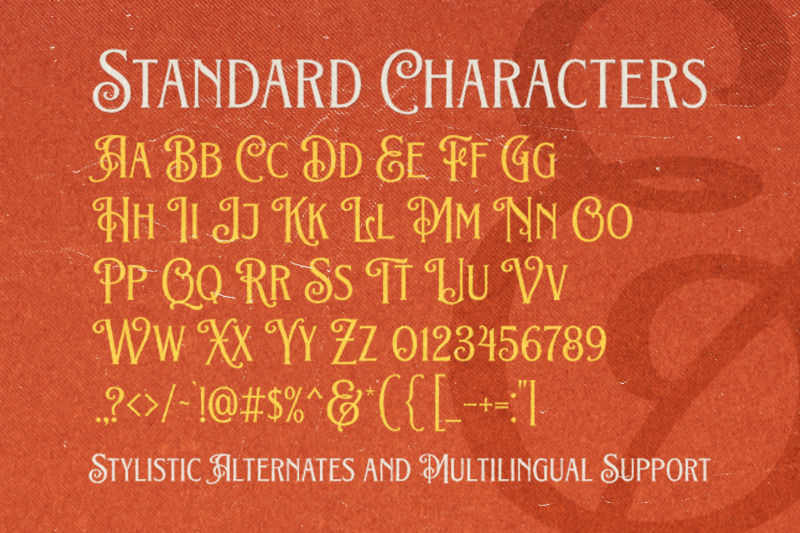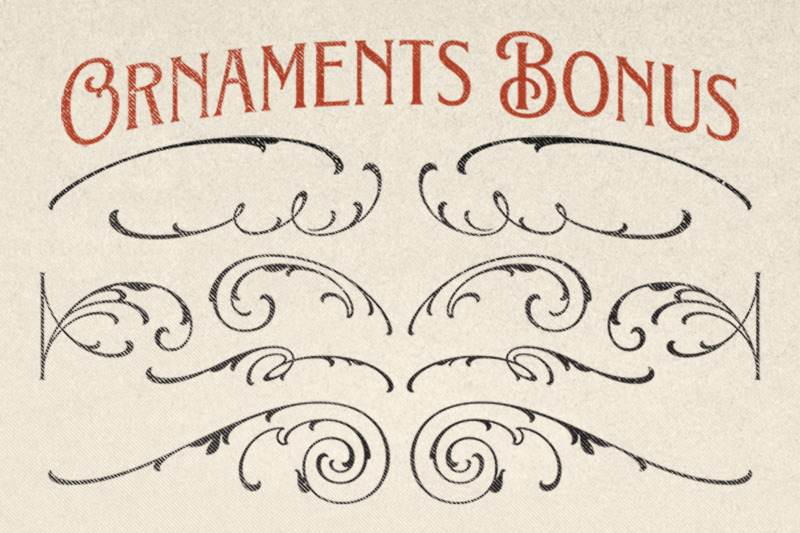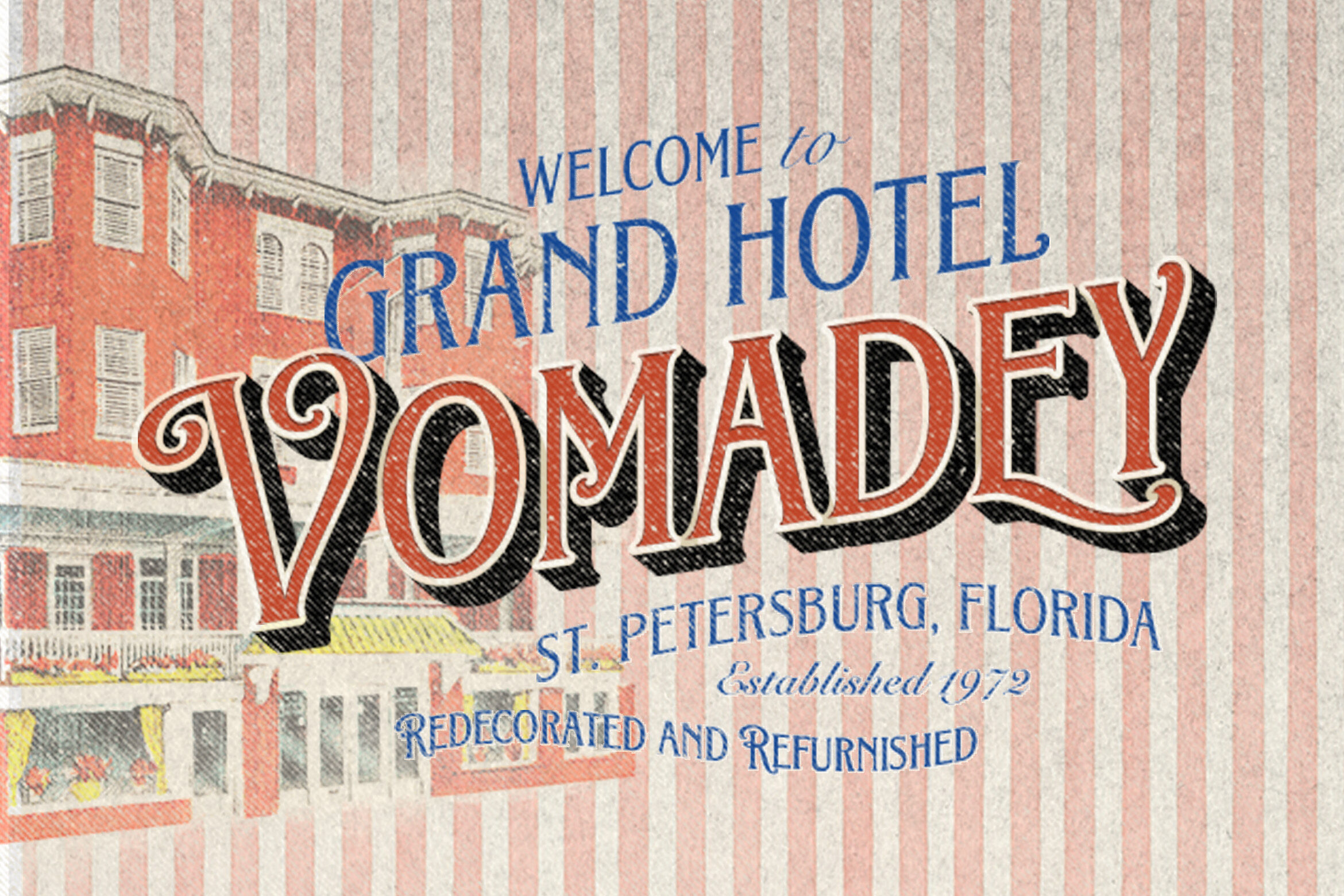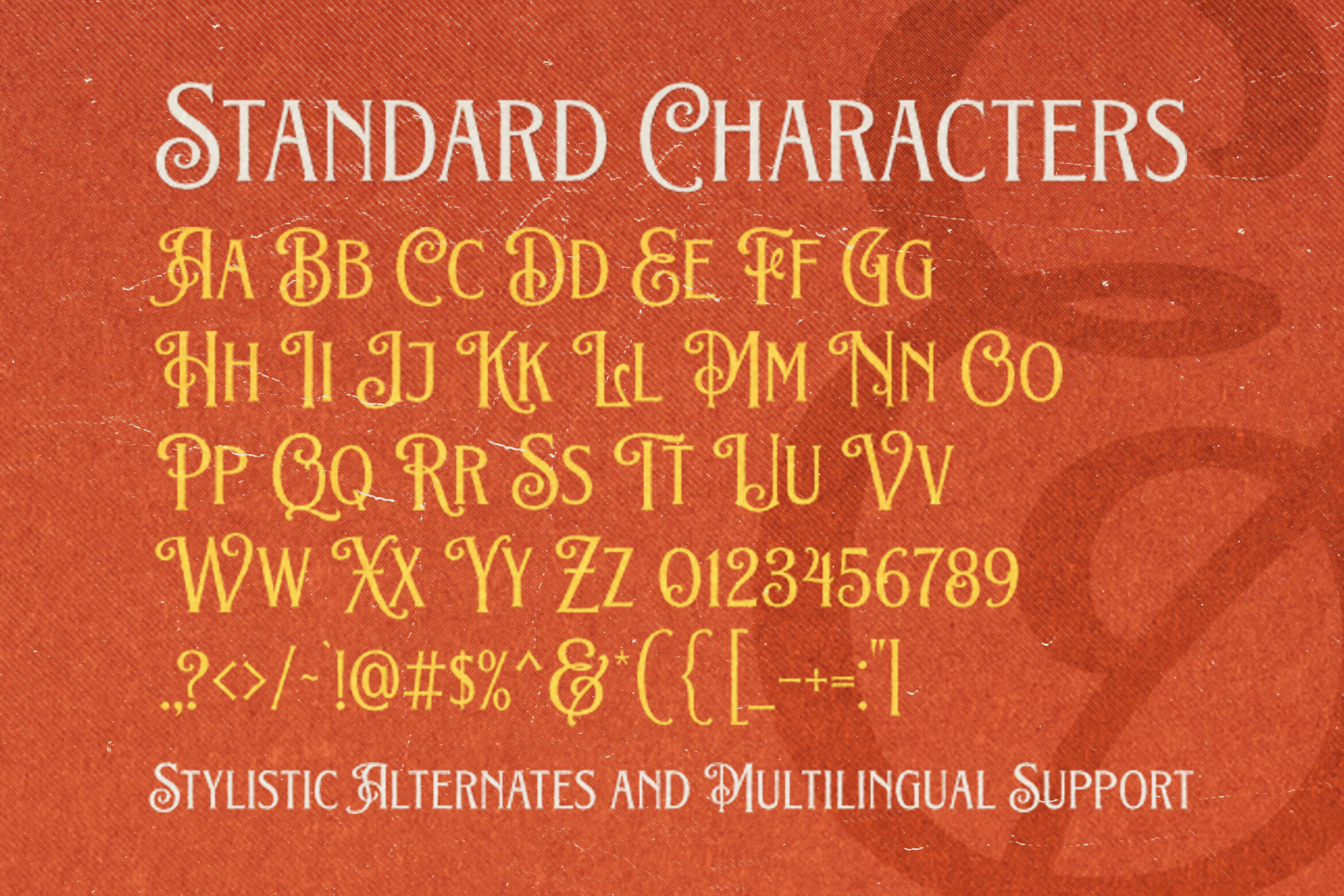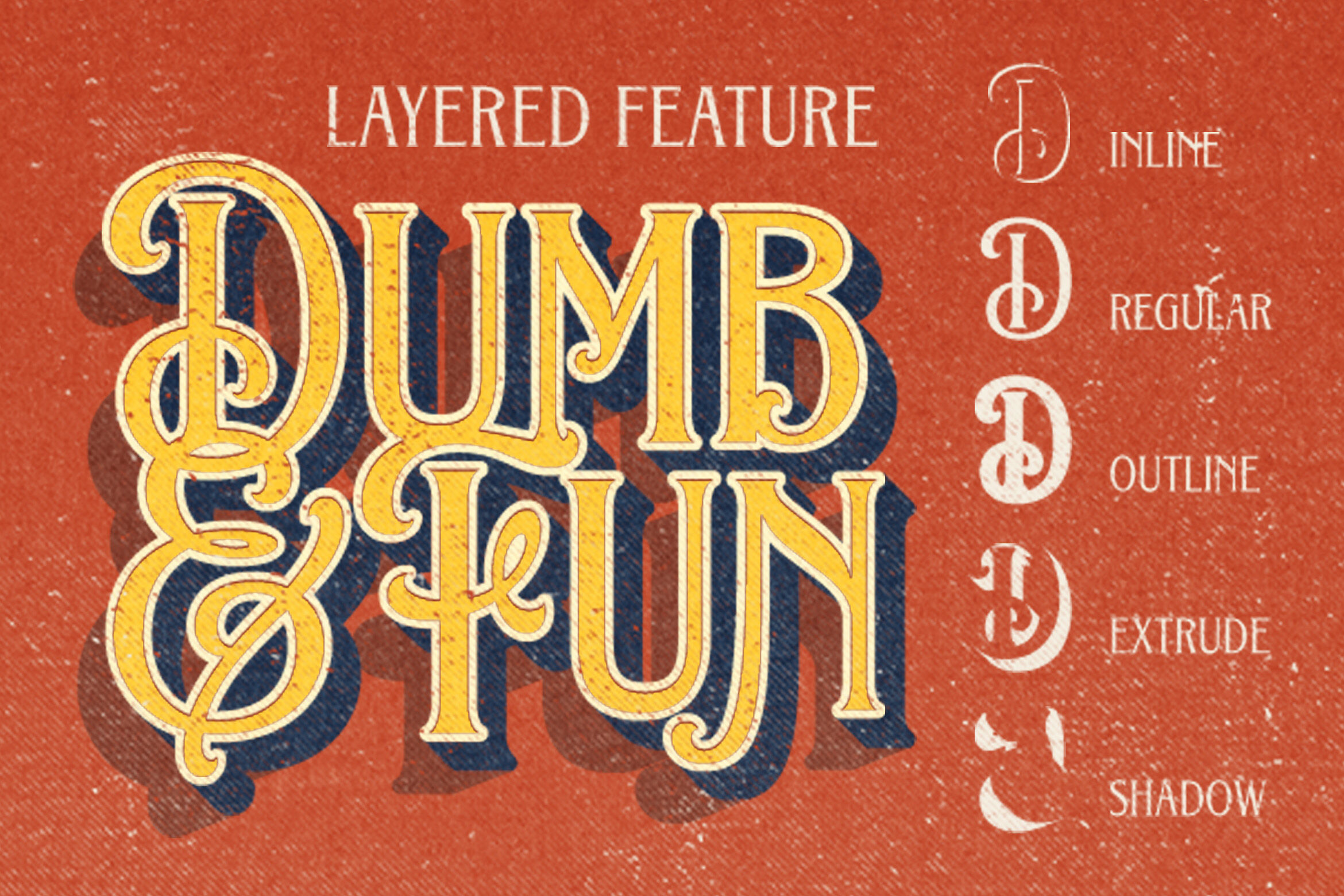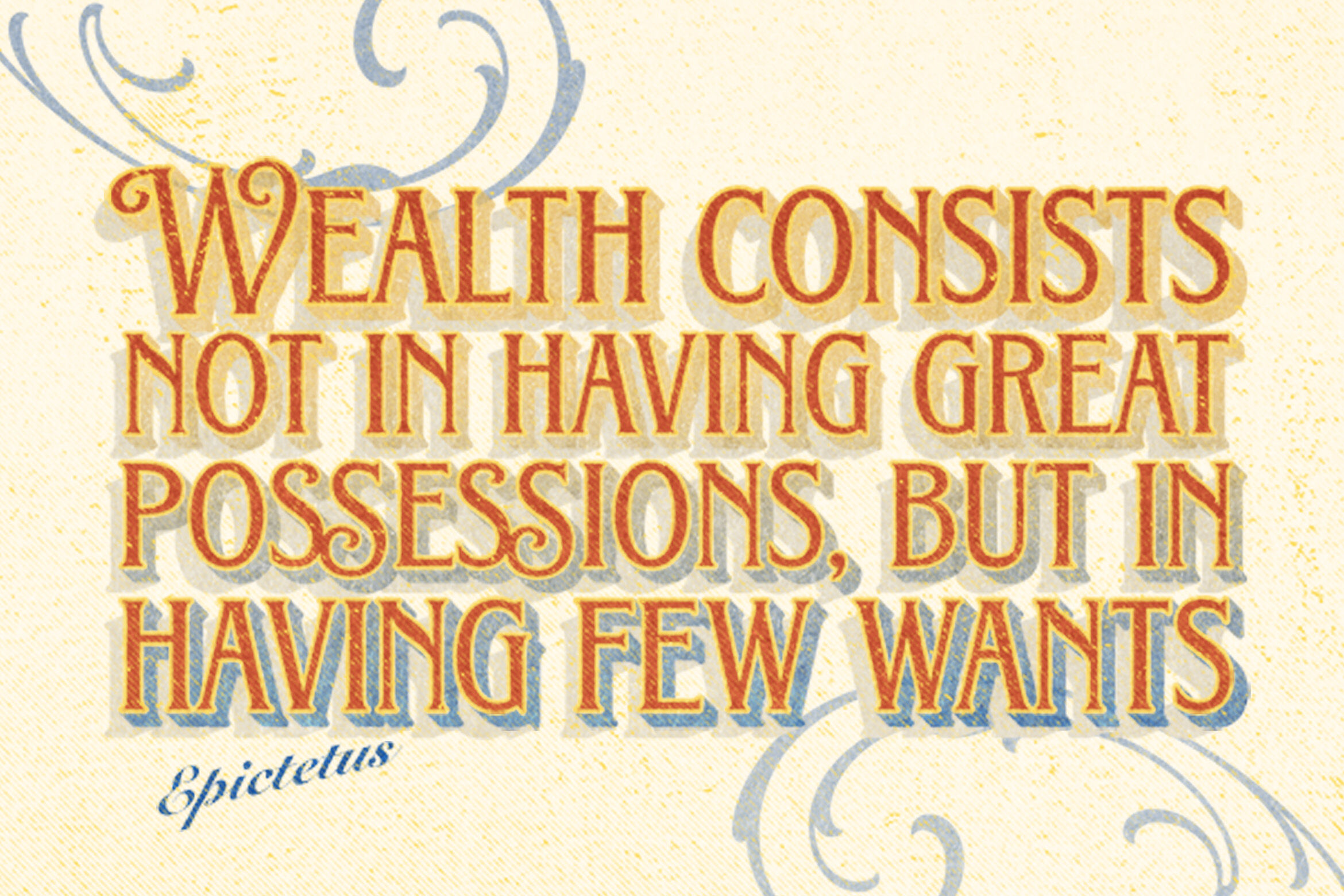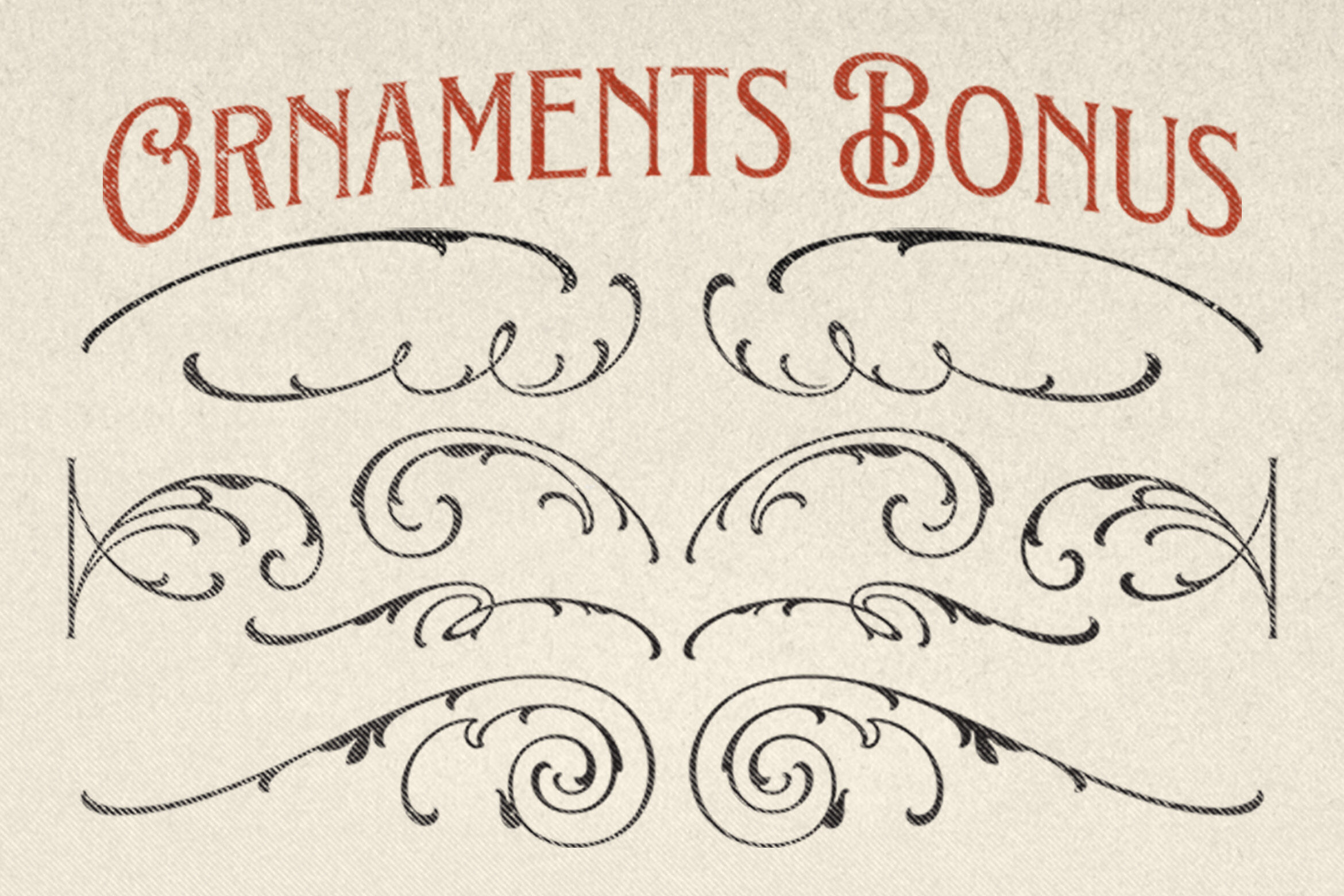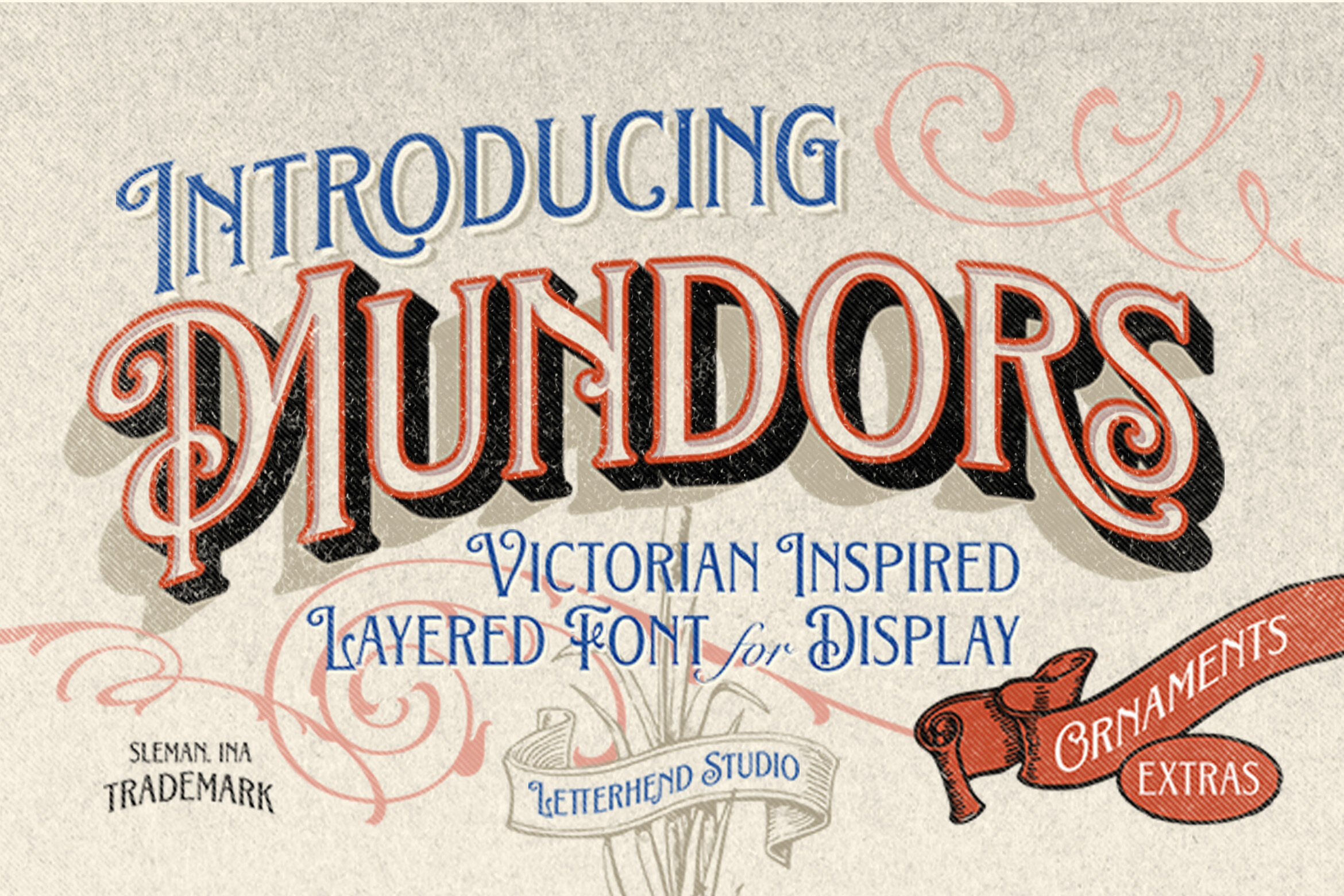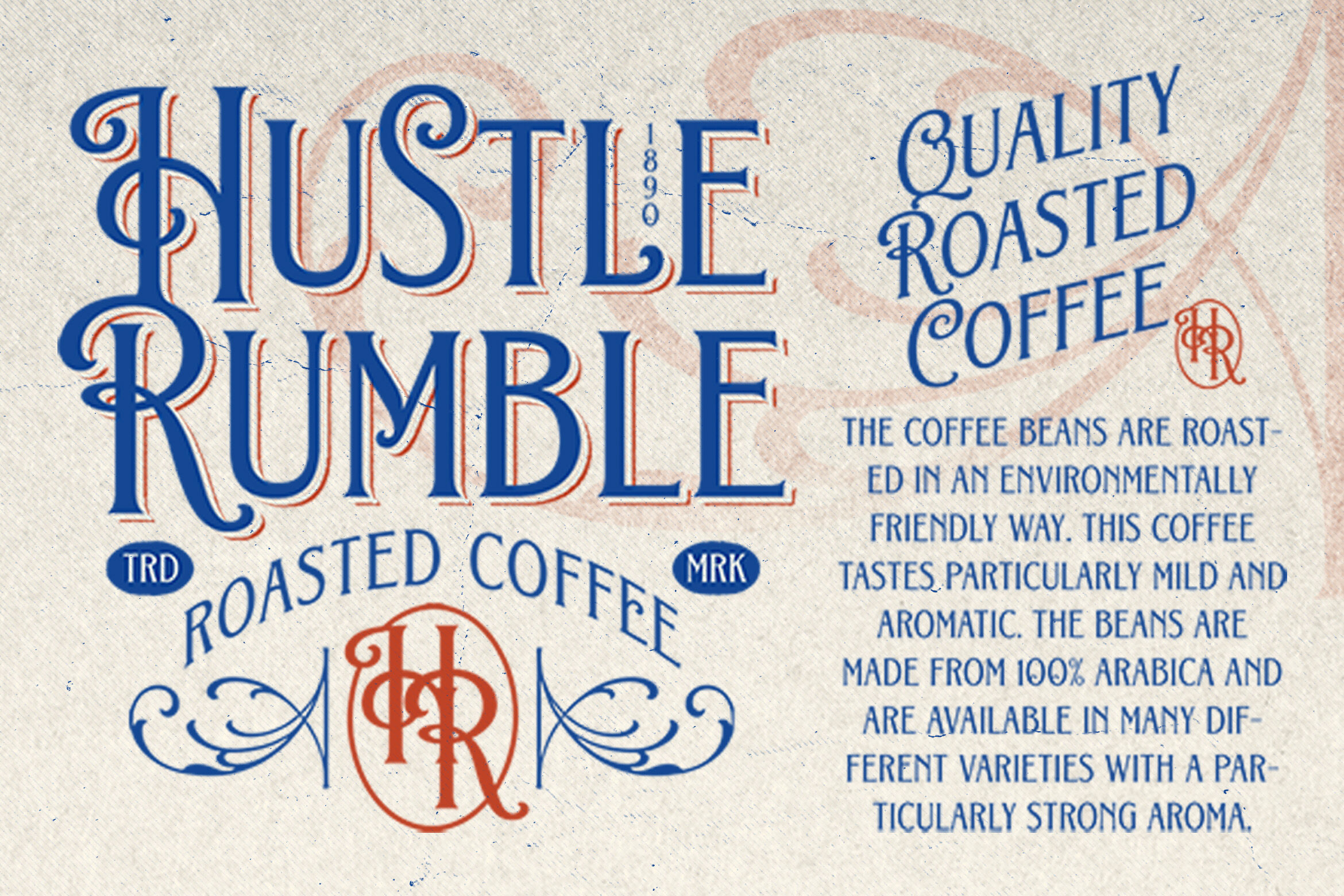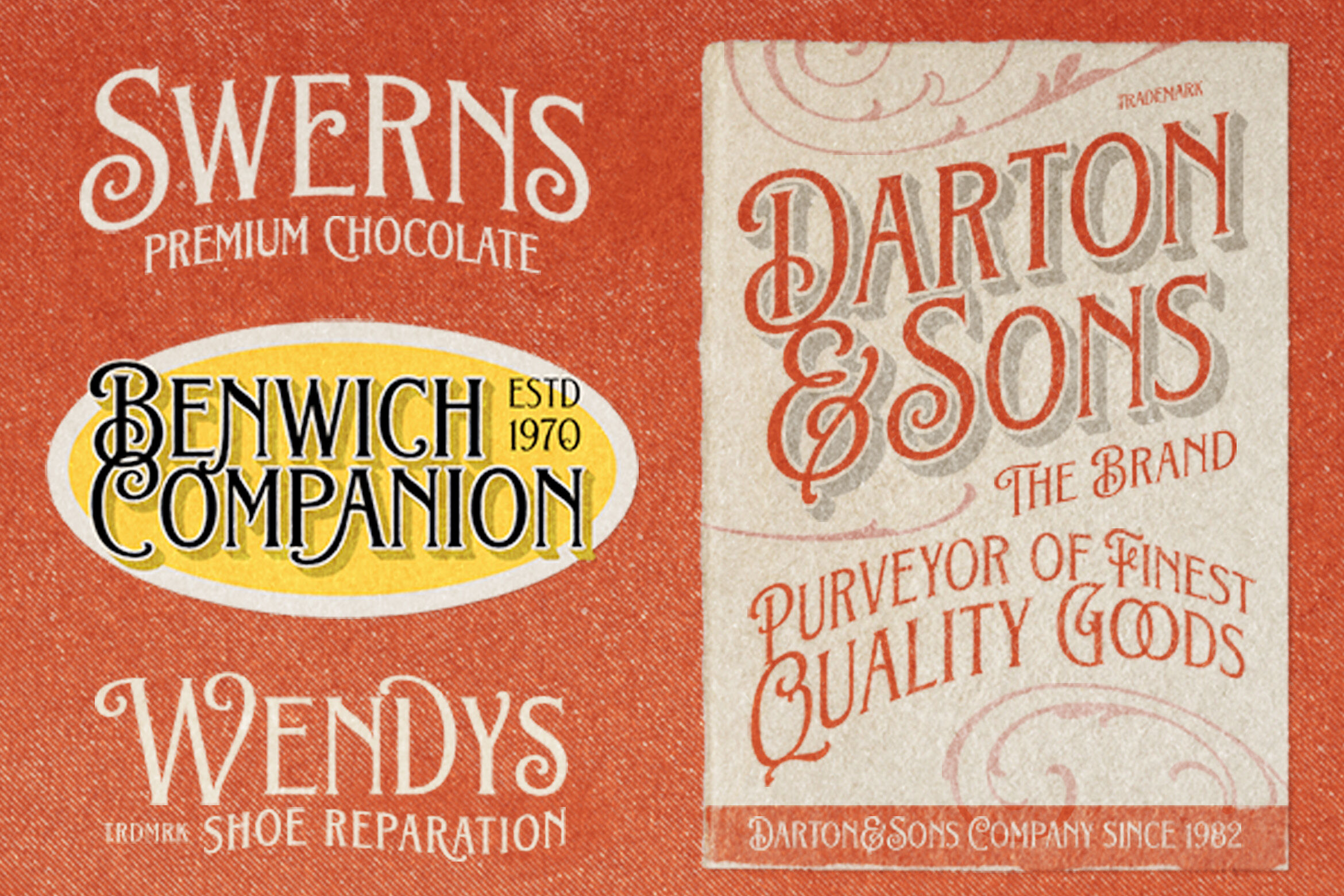
Mundors is a bold and stylish Victorian-inspired display font with layered effects. It features elegant curves, decorative serifs, and vintage swashes, perfect for creating a classic and old-school look. This font is great for logos, posters, packaging, book covers, invitations, and signage. It includes extra ornaments to make your designs even more unique.
Features :
Uppercase & lowercase
Numbers and punctuation
Alternates & Ligatures
Multilingual Support